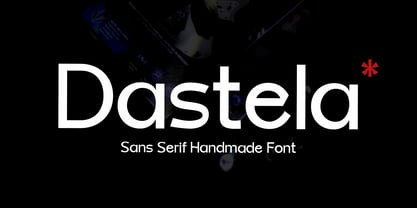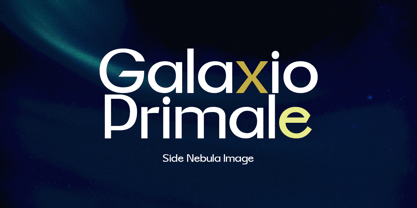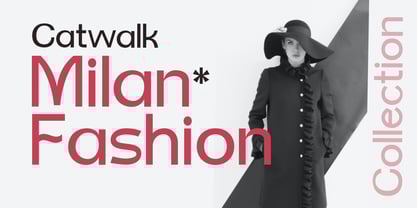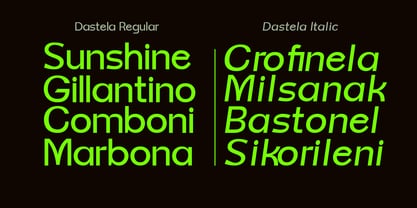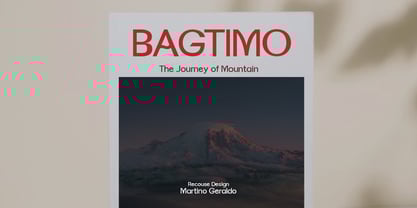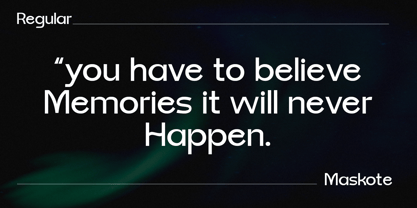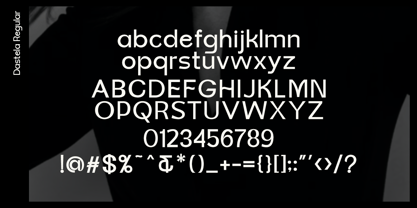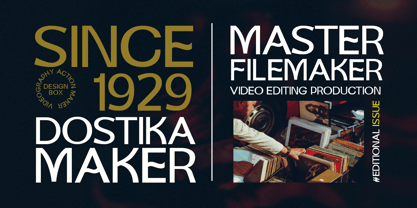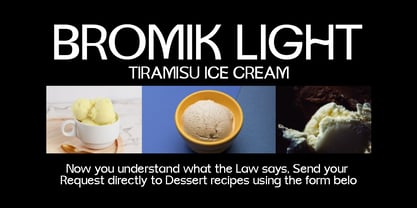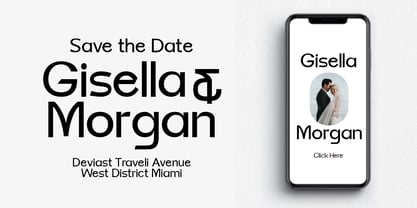
Dastela
by Saytype
The Dastela Font Family was designed by Sayuti Yuti and published by Saytype. Dastela contains 2 styles and family package options.
Dastela Sans serif with creative atmosphere and perfect shape, inspired by today's classy Sans serif Regular and Italic, with balanced and varied style thickness, born for luxury and beauty.
In my example, I show how this Dastela can be used. Perfect for logotype, branding, wedding invitation, romantic card, retro label, packaging, name spelling, and more.
Dastela comes with beautiful uppercase and lowercase letters, numbers, and punctuation. In addition to the main character set,
there are many alternative characters, initial and final strokes.